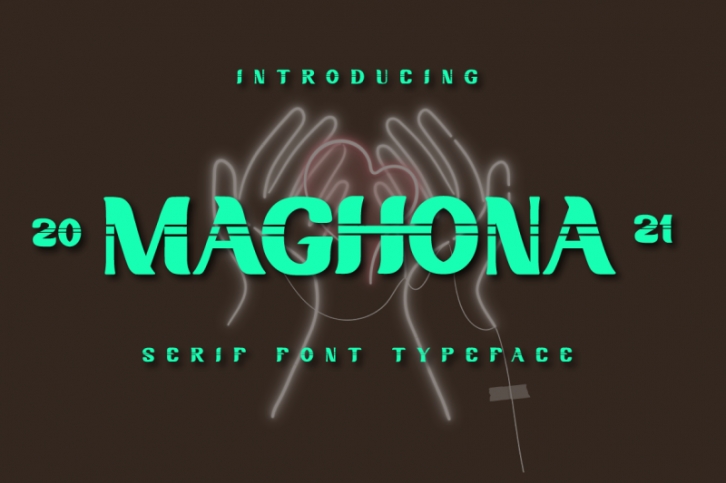
Maghona is a cool, bold and vintage styled display font. It can be used for various purposes such as logos, headings, t-shirts, letterhead, signage, labels, news, posters, badges and so much more.